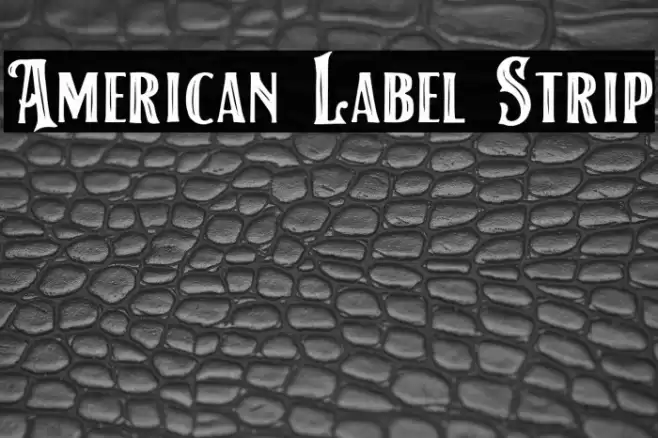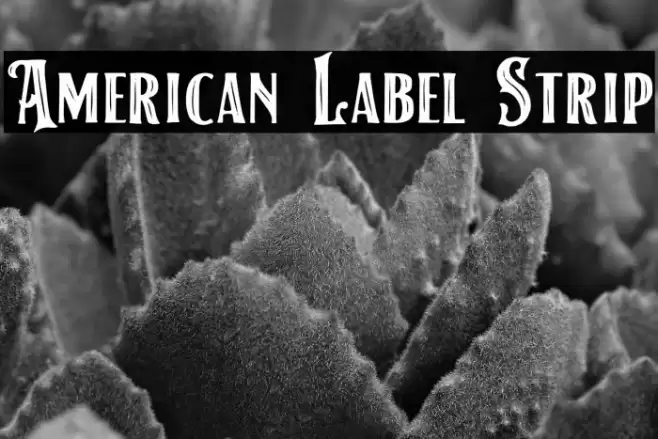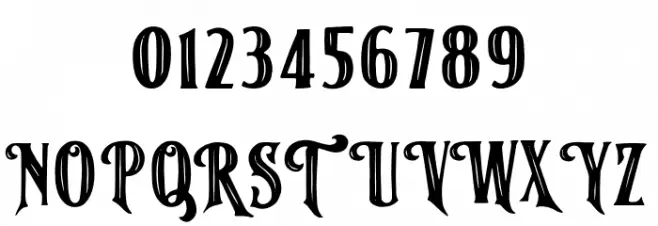
American Label Strip Font
American Label Strip Description
This font features a bold and decorative style with a vintage flair. The uppercase letters have a distinct, ornamental quality, with flourishes and curves that add a sense of elegance and drama. The lowercase letters are similarly styled, maintaining the decorative theme throughout. The numbers are bold and consistent with the overall design, making them stand out. This font is ideal for projects that require a touch of classic sophistication and artistic flair. The characters are well-spaced, ensuring readability while maintaining their decorative appeal.
A bold, decorative font with vintage elegance and ornamental flourishes from Regular fonts.
- Proposed Projects: Ideal for vintage-themed posters, branding, packaging, and decorative signage.
- Overall Style: Vintage, Decorative